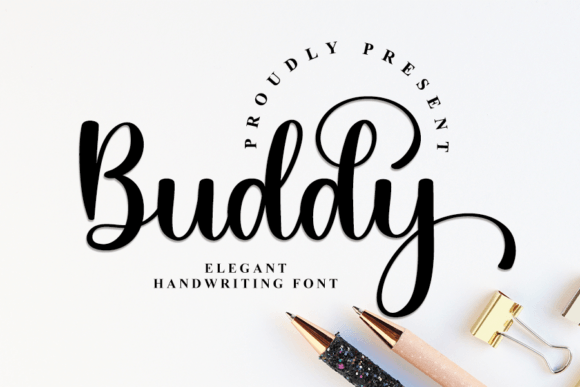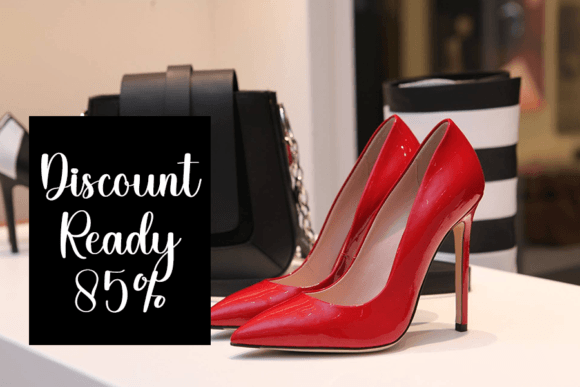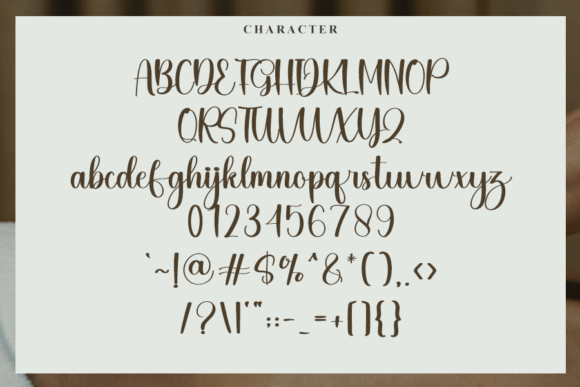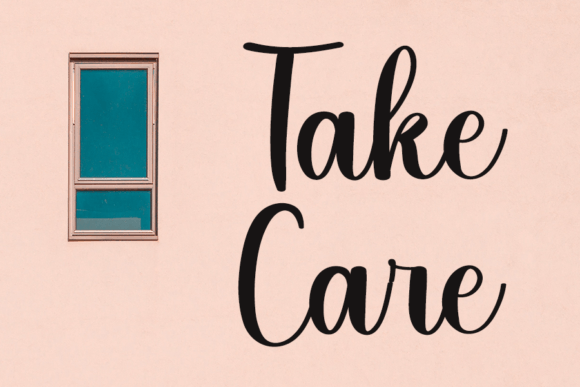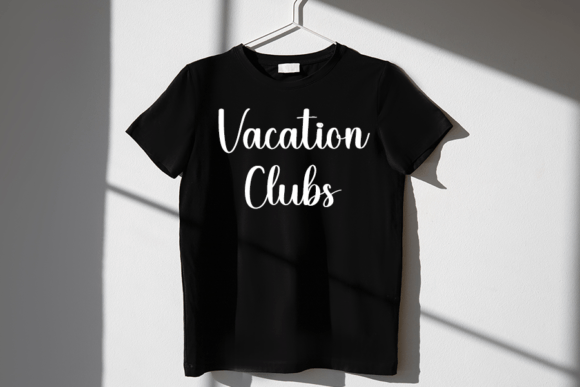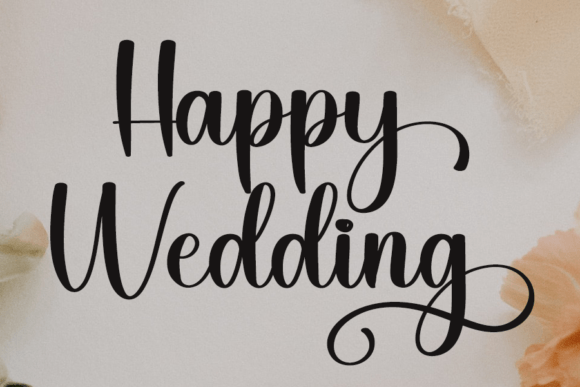
Buddy Font
**Buddy: A Timeless Blend of Calligraphy and Contemporary Elegance**
Buddy is a captivating handwritten font that seamlessly fuses the grace of classic calligraphy with the sleekness of modern design. It embodies a sense of timeless beauty, making it a versatile choice for a wide range of design projects. This font has the power to infuse elegance and sophistication into any creative endeavor.
At its core, Buddy captures the essence of calligraphy—an art form that has withstood the test of time due to its intrinsic beauty and fluidity. The font’s graceful curves and delicate strokes pay homage to the timeless craft of calligraphy. Each character is meticulously crafted to evoke a sense of handwritten authenticity, making Buddy an ideal choice for those seeking to add a personal touch to their work.
However, Buddy is not merely a nostalgic nod to the past; it also exudes a contemporary charm that keeps it relevant in today’s design landscape. The font’s modern elements ensure that it seamlessly integrates into various design contexts, whether it’s used for digital media, print materials, or branding. Its impeccable form and balance make it highly legible, ensuring that your message remains clear and easily accessible to your audience.
Buddy’s versatility knows no bounds. It can be the perfect choice for crafting elegant wedding invitations, adding a touch of sophistication to restaurant menus, or creating eye-catching promotional materials for a fashion brand. Its adaptability makes it a valuable asset for both professional designers and amateurs looking to elevate their projects.
Incorporating Buddy into your design projects is akin to infusing them with a sense of class and refinement. It has the power to transform the ordinary into the extraordinary, making your work stand out in a crowded creative landscape. Whether you’re aiming for a classic, vintage look or a more contemporary and trendy vibe, Buddy can effortlessly adapt to your vision.
In conclusion, Buddy is more than just a font; it’s an exquisite fusion of classic calligraphy and contemporary aesthetics. Its impeccable form, timeless charm, and adaptability make it a must-have tool for designers looking to add elegance and class to their projects. With Buddy, your designs are sure to leave a lasting impression and resonate with your audience in a profound way.